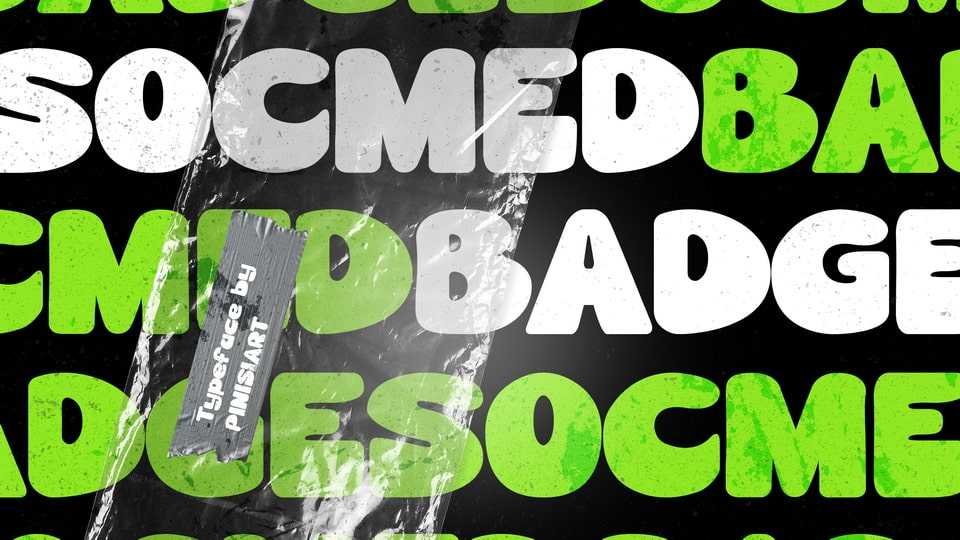
Download Socmed Badge, a bold and fun display typeface. Popping color and grabbing people’s attention any second of the way. This is Socmed Badge way.